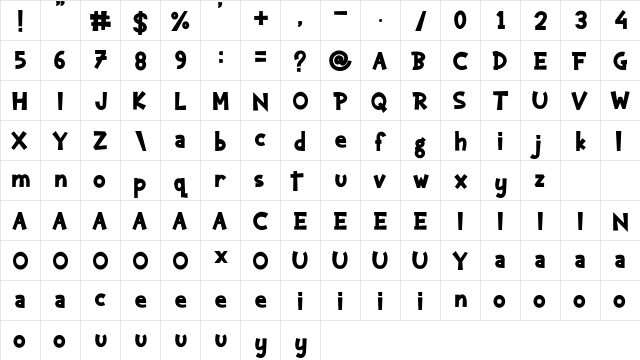
Kaharsa Regular
| Foundry | Rantautype |
| Designer | Yudi Pratama Chandra |
Design Context for Kaharsa Typeface
Kaharsa offers clean, dependable letterforms without strong stylistic allegiance, making it a practical choice for designers who need flexibility.